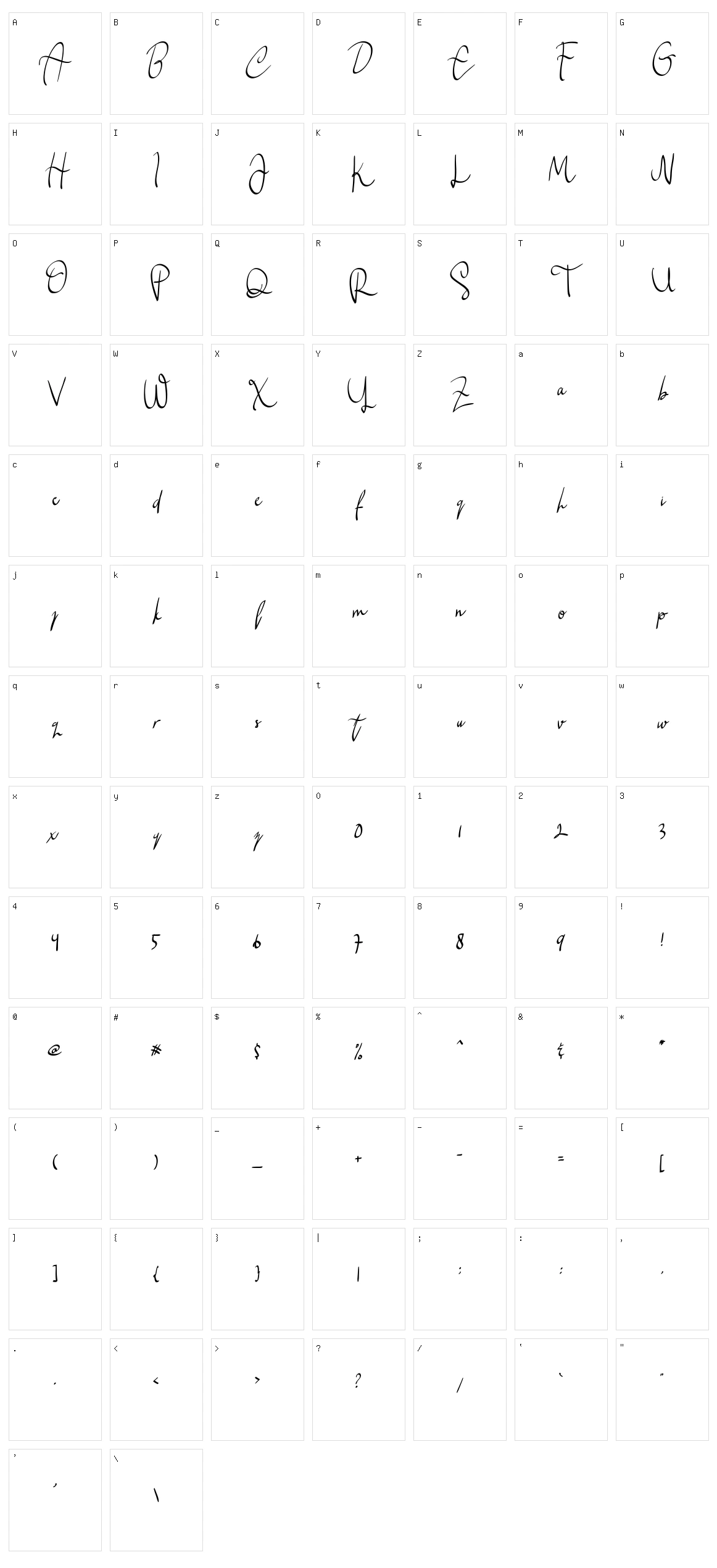
The free font Cemaniey is carefully designed by 160 Studio, showcasing a thoughtful balance of creativity and usability and falls under the Script font style. When you download the ZIP file, it contains only 23.33 KB of font files, making it lightweight and quick to download. Please review the license details below to understand permitted usage and distribution rights. If license information is not available, we recommend using this font for personal projects only or contacting the author directly for commercial usage permissions.